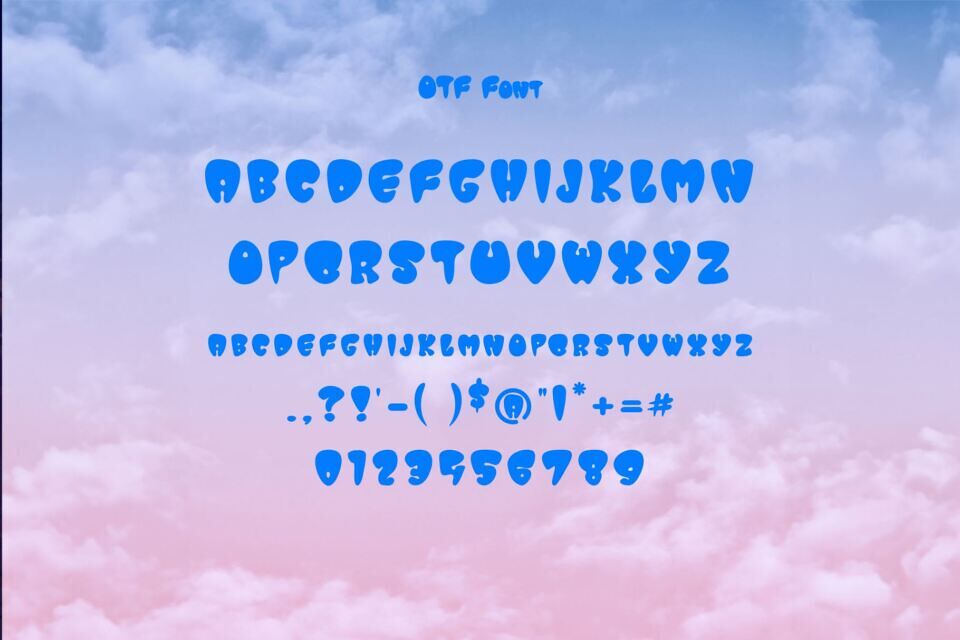
Groovy Balloon is a playful groovy font by Laura-Anne that captures a vibrant, retro vibe with its bold, rounded letterforms. Perfect for eye-catching designs, it’s ideal for greeting cards, social media posts, and scrapbooking.